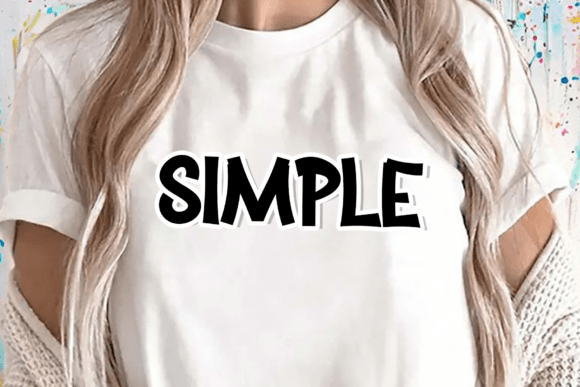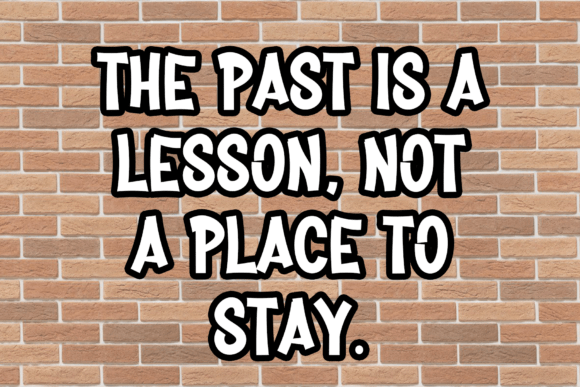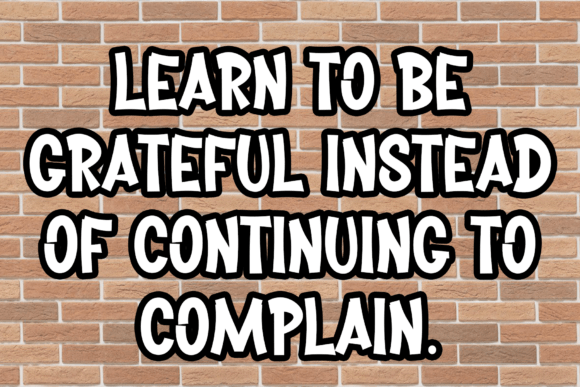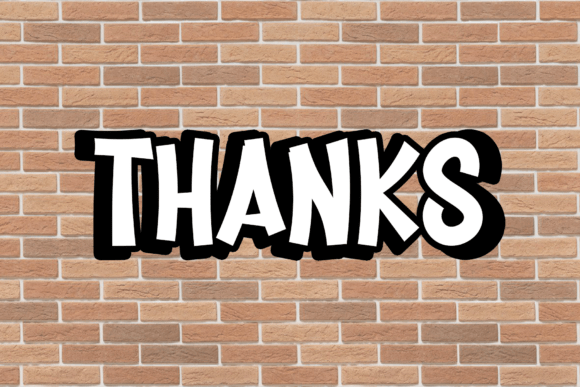
Unlock the Power of Urban Style with Freedom Font
Remember the rush of creativity when you first discovered the perfect font for a project? The one that made your design come alive, speaking directly to your audience and grabbing their attention? That’s the magic of Freedom Font – a bold, graffiti-inspired display font that brings the energy of the streets to your designs.
With thick, expressive strokes and a heavy black outline, Freedom Font is the perfect choice for projects that need a fun, rebellious, and energetic tone. Whether you’re creating posters, youth apparel, comic covers, or game titles, this font is built to stand out and make a statement. Its graffiti-inspired curves and dynamic structure make it an excellent choice for designs aimed at a younger or more creative audience, allowing you to make your words shout with attitude and personality.
As a designer, you know the value of finding the right font to elevate your work. Freedom Font is more than just a font – it’s a tool to help you connect with your audience and leave a lasting impression. So why settle for ordinary when you can have the freedom to create something extraordinary?
Key Features of Freedom Font
- Unique Characteristics: Freedom Font features a unique blend of modern and classic elements, with a bold and confident feel that is perfect for headings and titles.
- Language Support: The font supports a wide range of languages, including Latin, Cyrillic, and Greek, making it a versatile choice for global applications.
- Kerning and Ligatures: Freedom Font includes advanced kerning and ligature pairs, ensuring that text flows smoothly and looks professional even at small font sizes.
Designer Review: Freedom Font
I recently had the chance to work with Freedom Font, and I must say it’s been a mixed bag. There are some things that really shine, but some areas that need improvement.
- Unique letterforms**: The Freedom Font has some beautiful, unique letterforms that really make it stand out from more traditional fonts.
- Legibility**: Despite its ornate nature, the font is surprisingly legible, even at smaller sizes.
- Compatibility**: I had no issues using the font in a variety of applications, from web design to print.
- Limited character set**: Unfortunately, the font only comes with a limited character set, which can make it difficult to use for longer texts or in languages that require a wider range of characters.
- Not suitable for body text**: While the font is great for headings and titles, it’s not the best choice for body text due to its complexity and the potential for readability issues.
Overall, Freedom Font is a great choice for designers who want to add a touch of elegance and sophistication to their projects, but it’s not suitable for every application. With a bit more development to address its limitations, I think it could be a real game-changer.
Getting the Most Out of Freedom Font
For optimal results, use Freedom Font in bold or italic styles to add emphasis.
Experiment with different font sizes and colors to create visual interest.
Combine Freedom Font with other fonts to create a unique and eye-catching design.
Freedom Font is ideal for:
Creating bold headlines and titles.
Designing logos and brand identities.
Adding a touch of elegance to invitations and event materials.